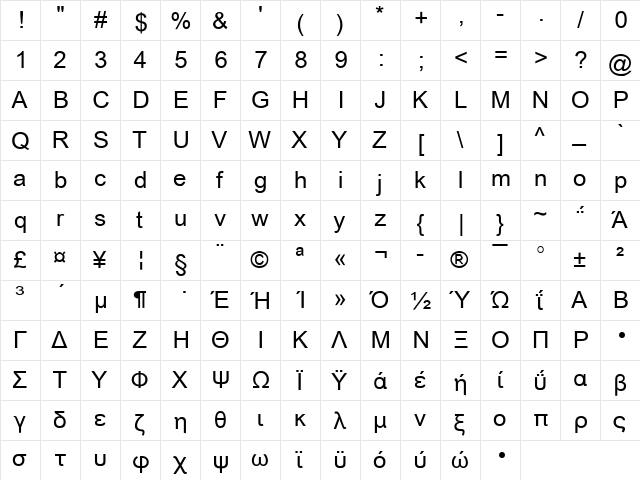
HellasArial Plain
Design Context for HellasArial Typeface
HellasArial offers clean, dependable letterforms without strong stylistic allegiance, making it a practical choice for designers who need flexibility.